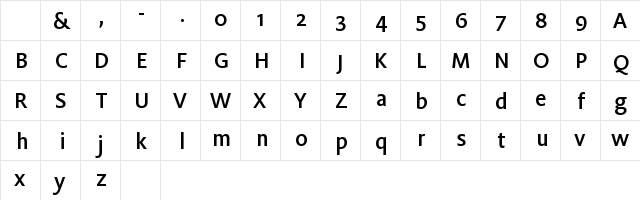
Flex is a composed and adaptable typeface that performs quietly and consistently across a wide range of design contexts.
Pro Tip: Use Flex in both headline and body roles to test its range before committing to a single application.